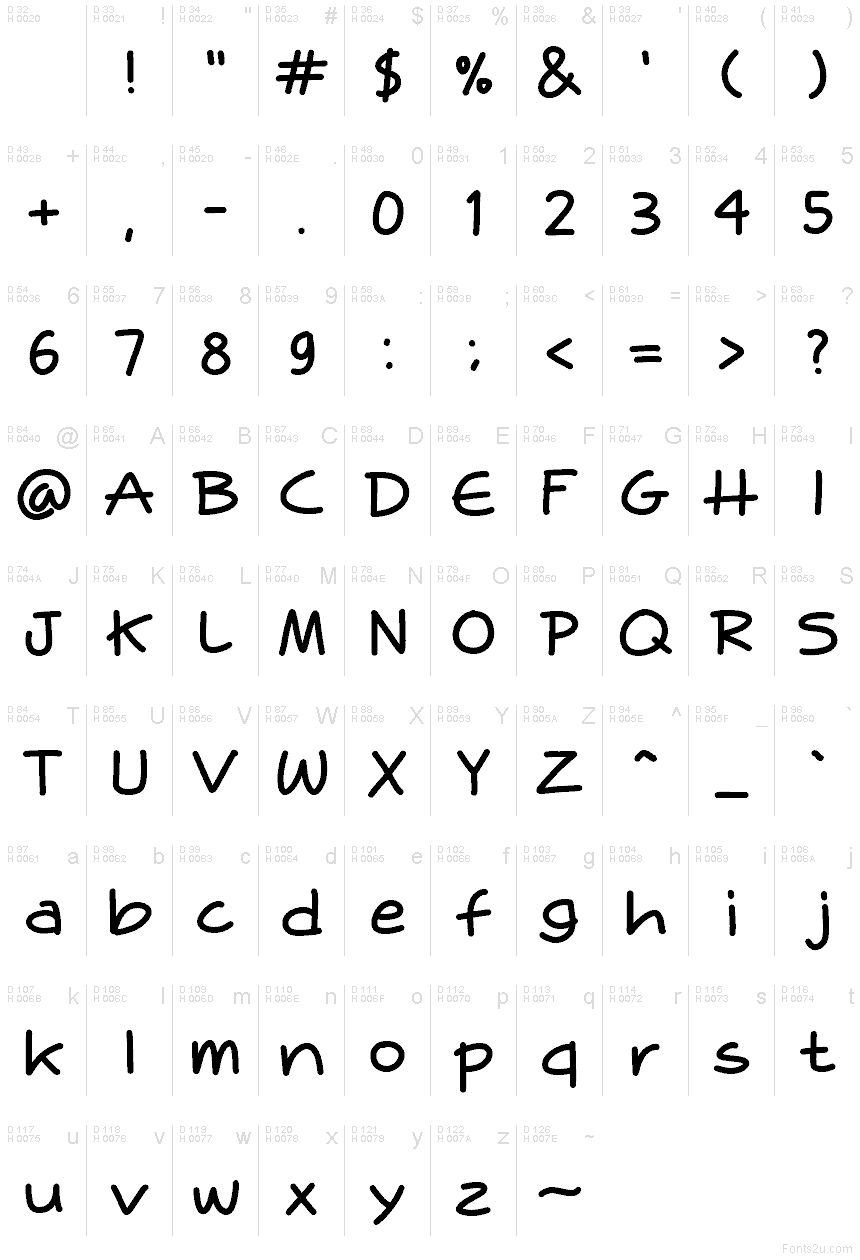
The Simple Life
The Simple Life font by Origin Type is a free handwritten typeface with a calm, everyday-warmth feel. Its rounded strokes and slightly bouncy rhythm look like neat marker notes in a favorite journal—casual, but still very readable. Letters sit close together with a friendly, cushioned flow, giving headlines and short phrases a cozy, human touch without feeling messy or chaotic.
Using The Simple Life font, you can bring a relaxed, personal voice to lifestyle blogs, recipe cards, kids’ projects, planners, quotes for social media, and packaging for handmade goods. This free font shines when used a bit larger, where its soft curves can really show, and pairs easily with a clean sans serif for body text to keep layouts clear and approachable.